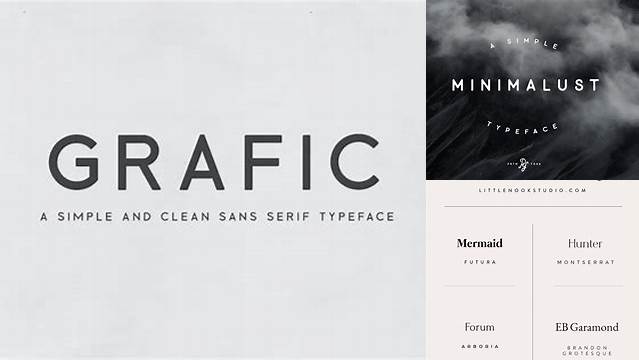
Simple Clean Modern Fonts Guide For Designers
Hey guys! Ever stopped to think about the fonts you see every day? They're everywhere, from the websites you browse to the books you read, even the apps on your phone. Choosing the right font can make or break the look and feel of anything you're creating, whether it's a sleek website, a professional presentation, or a catchy logo. Today, let's dive into the world of simple, clean, and modern fonts, explore what makes them so popular, and how you can use them effectively.
What Makes a Font Modern? Defining the Style
So, what exactly qualifies as a modern font? Well, it's less about a specific era, and more about a certain aesthetic. Think of fonts that feel fresh, minimalist, and often, a little bit futuristic. They usually ditch the fussy details and ornate flourishes of older styles, opting for clean lines, balanced proportions, and a focus on readability. Modern fonts often fall into a few key categories, including sans-serifs, geometric sans-serifs, and some carefully chosen serifs. The core idea is that these fonts have a contemporary feel. A modern font typically avoids excessive ornamentation, embraces simplicity, and often features consistent line weights. This simplicity helps the design look polished and up-to-date. These fonts are very popular. They’re often used for their versatility. They can be used for different purposes, from websites to logos. Understanding the nuances of these styles is crucial for anyone looking to incorporate modern design principles. It's all about creating a visual experience that is both appealing and easy to understand. These typefaces are designed to be versatile, adapting well to various applications such as headings, body text, and even user interface elements. The key characteristics of a modern font often include a focus on geometric shapes, a lack of traditional serifs, and a generally clean appearance. This simplicity is what makes them so adaptable to different digital and print media. The right font can really make a difference in how your message is perceived. The goal is to make your design appear modern and timeless.
For instance, sans-serif fonts, like Helvetica and Roboto, are classic examples. They lack the small decorative strokes (serifs) found on the ends of letters, giving them a straightforward, uncluttered appearance. Geometric sans-serif fonts take this a step further, building letterforms from basic geometric shapes like circles, squares, and triangles. Futura is a well-known example, known for its sleek, geometric forms. Modern fonts are usually used for their aesthetic appeal. These fonts are designed to look good on both digital screens and print materials, making them versatile choices for any project. It's important to understand the characteristics of each type of font to make an informed decision. By selecting the right font, you can create a consistent and cohesive design that looks professional. It is also important to test how your font will look with your content. Make sure the font is readable in all situations, including on mobile devices and in different lighting conditions. Think of the context where the font will be used to ensure the design will look perfect in different environments. By considering these factors, you can make sure your typography adds to the overall effectiveness of your message.
The Benefits of Using Modern Fonts
Alright, so why bother with modern fonts? Why not just stick with Times New Roman or something? Well, modern fonts offer some serious advantages. First off, they often provide excellent readability, especially on screens. In today's digital world, that's a huge deal. These fonts are designed to be clear and legible even at smaller sizes. This is super important when you're designing for websites, apps, and other digital interfaces where users might be viewing your content on a variety of devices. Clean fonts tend to have a more contemporary feel. The design will stay current and feel up-to-date. They tend to have a timeless quality that doesn't go out of style quickly. This is because they are not tied to any particular trend. This makes them a great choice for branding or any design project that you expect to last for years. They are also versatile, meaning they adapt well to a variety of different contexts. You can often use the same font for headlines, body text, and even user interface elements.
Another big plus is that modern fonts can convey a sense of professionalism and sophistication. They can make your brand look trustworthy and polished. A well-chosen font can speak volumes about your brand's personality. Consider that a well-designed font can make your brand look more trustworthy. This can be a really big help in attracting customers or clients. A modern font can make your design appear more polished and up-to-date. They often feel minimalist and are good for conveying a sense of professionalism. They can work with a wide range of design styles. They are suitable for many purposes, including websites, presentations, and print materials. Also, most of these fonts are available for free, so you can start your project immediately.
Modern fonts are often chosen because they are considered sleek and modern, which in turn can help you showcase your brand image. This is the reason why these fonts are also helpful for designing the look of a specific brand. The goal is to ensure a cohesive and appealing design that will attract clients and customers. By selecting the right font, you can communicate professionalism and sophistication. This is a great way to improve the impact of your message and capture the audience's attention. It's important to consider the specific requirements of each project and choose the appropriate font to achieve the desired effect.
Top Simple and Clean Modern Fonts: Recommendations
Okay, let's get to the good stuff. Here are a few simple, clean, and modern fonts that you should definitely check out: (Note: These are just suggestions, the best font will depend on the specific project). For the best results, you might have to play around with the different options to make sure it fits with your overall style. Be sure to test each font out in different contexts to ensure optimal readability and aesthetic appeal.
Helvetica: A true classic. It's clean, neutral, and works for pretty much everything. If you're aiming for a safe, professional look, Helvetica is a solid choice. It's incredibly versatile and used everywhere. You can't go wrong with Helvetica if you want a font that looks clean and professional.
Roboto: Designed by Google, Roboto is the go-to font for many Android devices and websites. It's got a friendly feel and is incredibly readable. If you want something that's easy on the eyes, particularly for body text, Roboto is a great pick. If you want a font that is easy to read, then Roboto is a great choice. If you want a modern font, then choose Roboto.
Open Sans: Another Google-designed font, Open Sans is super popular for its readability and versatility. It's a great option for both headings and body text, making it a workhorse for many designs. This font is a solid option if you want to be confident in the readability of your message.
Lato: With its friendly, yet professional, look, Lato is a versatile choice. It's great for both digital and print applications, making it a reliable all-rounder. Lato can work well in various situations, making it a smart choice for any project. If you want something that blends in well, then Lato is a smart choice.
Montserrat: This geometric sans-serif has a modern, urban feel. It's great for headings and display text, adding a touch of style. This is a smart font that works well for headers and display text, and is guaranteed to make your design stand out. Consider Montserrat if you want to make your design look more trendy and stylish.
Conclusion: Embrace the Simplicity
So, there you have it, guys! A deep dive into the world of simple, clean, and modern fonts. Remember, choosing the right font can make a huge difference in the impact of your designs. These fonts are popular because they are versatile. They are suitable for websites, presentations, and print materials. By understanding the characteristics of modern fonts and using them effectively, you can create designs that are both visually appealing and easy to read. Don't be afraid to experiment, try different combinations, and find the perfect font for your next project. The key is to embrace simplicity, focus on readability, and let your message shine through. Modern fonts are the perfect choice to create professional-looking designs. Hopefully, this guide will get you started on your journey! Happy designing!